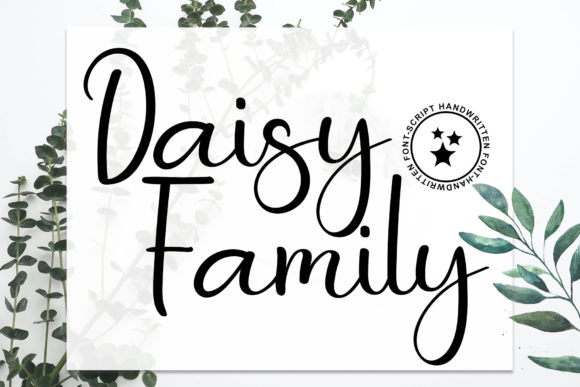
Journey into the world of the Daisy Family Font, a script typeface that exudes grace and sophistication. Let your creativity flourish as you discover the endless possibilities hidden within each character. Whether you're crafting a heartfelt message on an invitation card, creating a memorable logo for your brand, or conjuring up captivating posters for an upcoming event, Daisy Family Font is your ultimate companion. Dive into its elegant curves and graceful strokes, letting them guide your imagination to new heights of design brilliance.
Imagine your words dancing across the page, adorned in the delicate artistry of Daisy Family Font. Its fluid lines and elegant loops add a touch of timeless charm to any project. Elevate your packaging designs with a logo that exudes professionalism and sophistication. Create invitations that capture the essence of your special occasion, leaving a lasting impression on your guests. Unleash your inner artist and craft flyers and mockups that are sure to turn heads and leave an unforgettable impact.
Daisy Family Font is not merely a font; it's an artistic symphony that transforms your designs into captivating masterpieces. Witness the harmonious blend of classic and contemporary, as this font seamlessly adapts to a wide range of design styles. Its versatility knows no bounds, allowing you to effortlessly infuse your projects with a touch of elegance, a dash of playfulness, or a hint of vintage charm.
With Daisy Family Font, the possibilities are as endless as your imagination. Each character is meticulously crafted to deliver a balanced and harmonious aesthetic, ensuring that your designs possess an innate sense of visual appeal. It's a font that invites creativity to flourish, encouraging you to push the boundaries of design and explore uncharted territories of self-expression.
Welcome to the Daisy Family Font experience, where elegance and versatility intertwine to create a font that's as captivating as it is versatile. Let your creative juices flow freely as you embark on a design journey that promises to leave a lasting impression on your audience. Embrace the power of Daisy Family Font and unlock the true potential of your design aspirations.